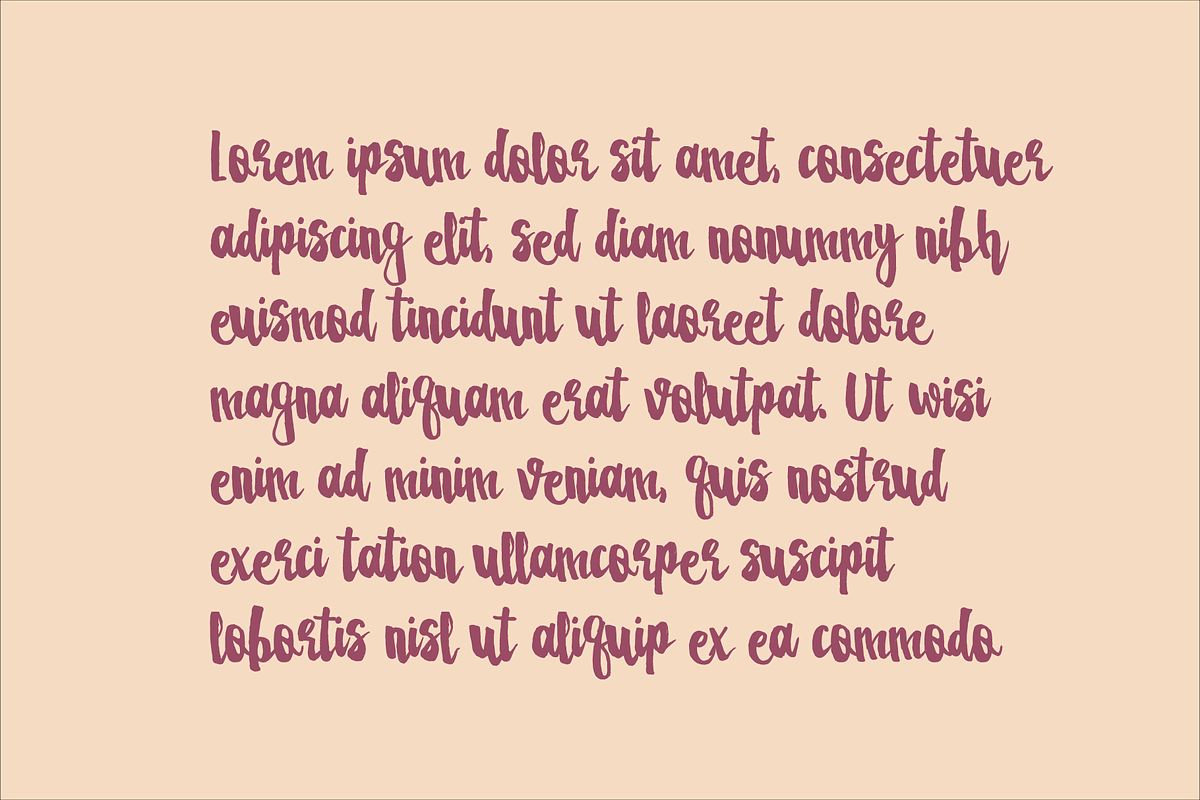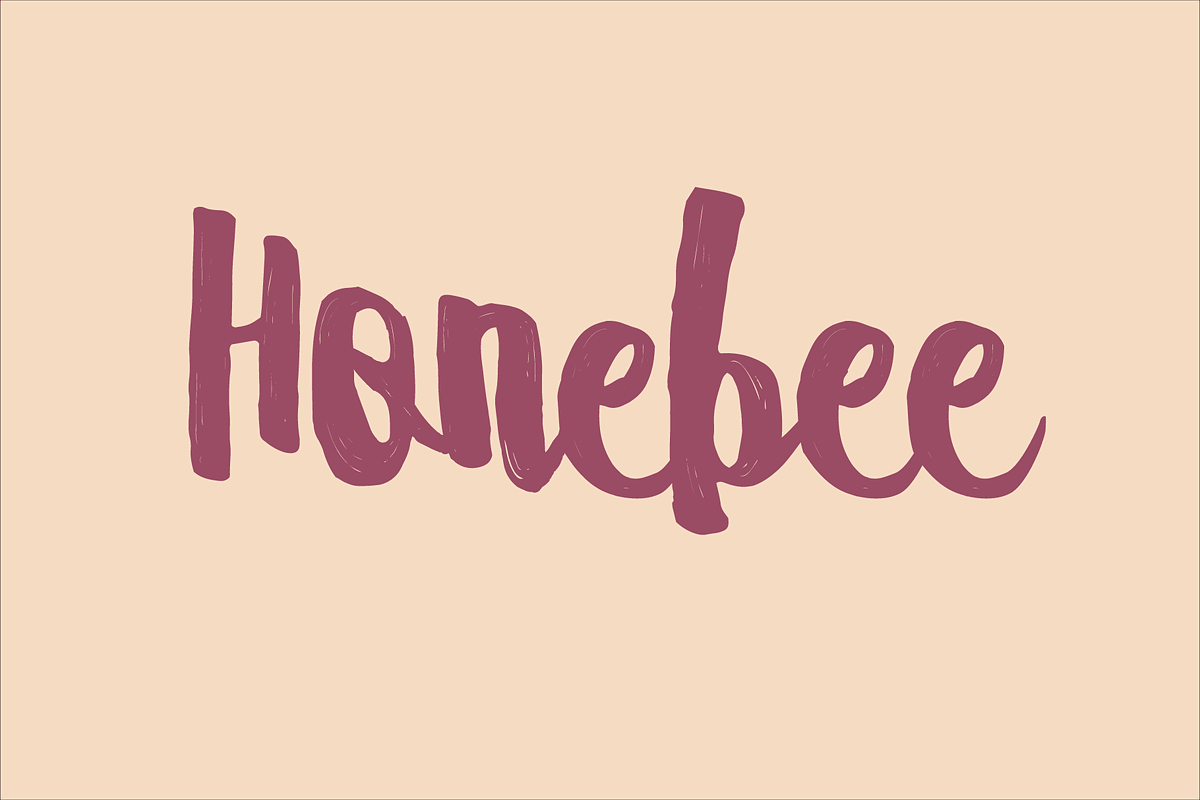
Honebee
Introducing honebee winter font a rough Brush Calligrahpy Font with bouncing style, created on november 2016, reflect the Beautifull and girly.
and suitable for any design needs, branding, modern advertising design, Art Quote, Book/Cover Title, special events, custom mug, pillow, t-shirts, any brush lettering needs and more.
Regular Font with over 100 glyphs inside.
Stylistic Alternate
Special Ligatures.
Kerning Classes.